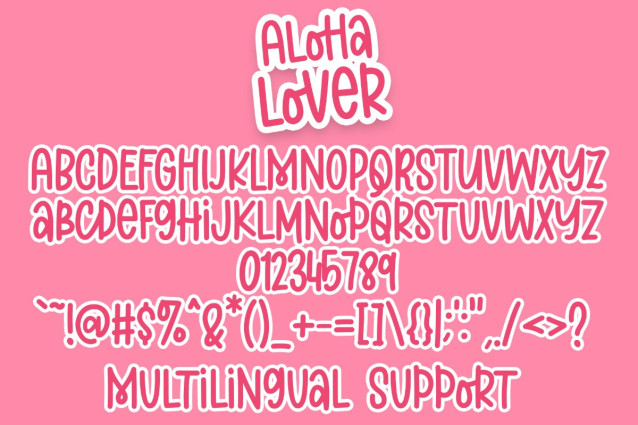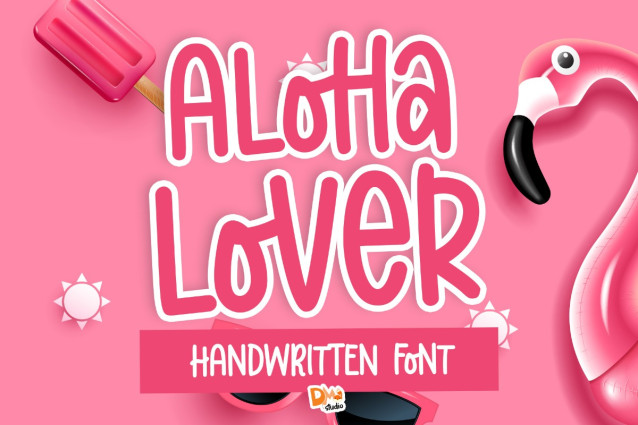
Aloha Lover Font
Aloha Lover Font, a delightful and versatile typeface that radiates the warmth and laid-back vibes of the tropics. This font is a perfect blend of casual elegance and exotic charm, making it ideal for a wide range of design projects, from invitations and branding to social media graphics and more.